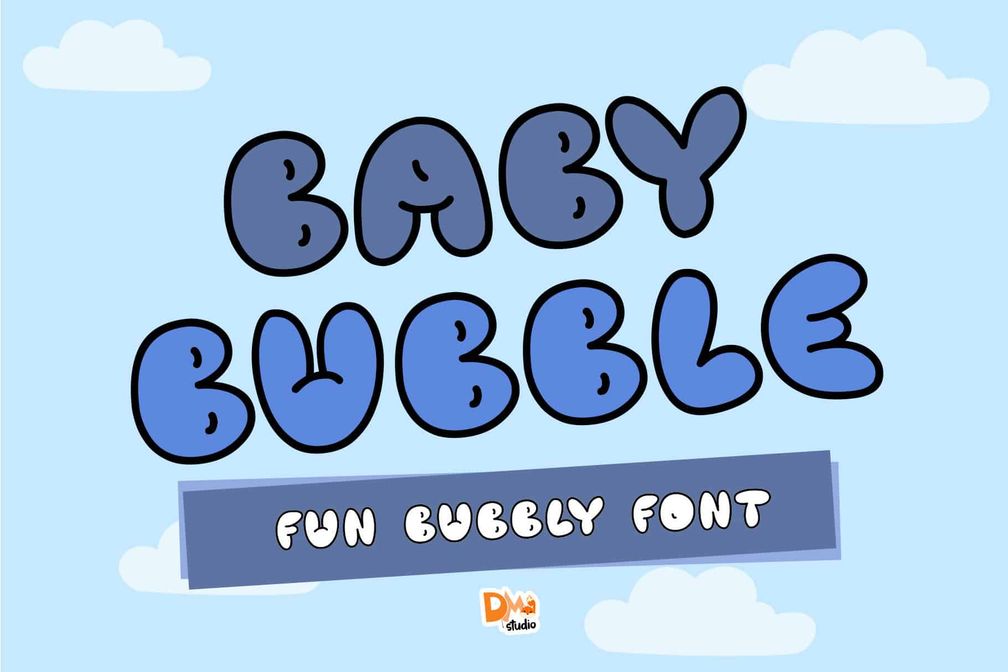
Baby Bubble
Baby Bubble – a Fun Bubbly Font
Baby Bubble is a playful and delightfully rounded display font that bursts with joy and whimsy. With its bubbly curves and cheerful vibe, this font brings instant charm to children’s designs, birthday invitations, product packaging, cartoons, and playful branding. Whether you’re crafting for kids or just want a pop of fun, Baby Bubble adds the perfect dose of sweetness and fun to any project.
• Adorably Round Style: Every letter features plump, smooth shapes that feel like floating bubbles.
• Perfect for Kid-Friendly Designs: Ideal for children’s books, birthday cards, party decor, and toy branding.
• Joyful and Approachable Look: Evokes smiles and laughter with every word.
• Versatile and Easy to Use: Great for both digital and print applications.